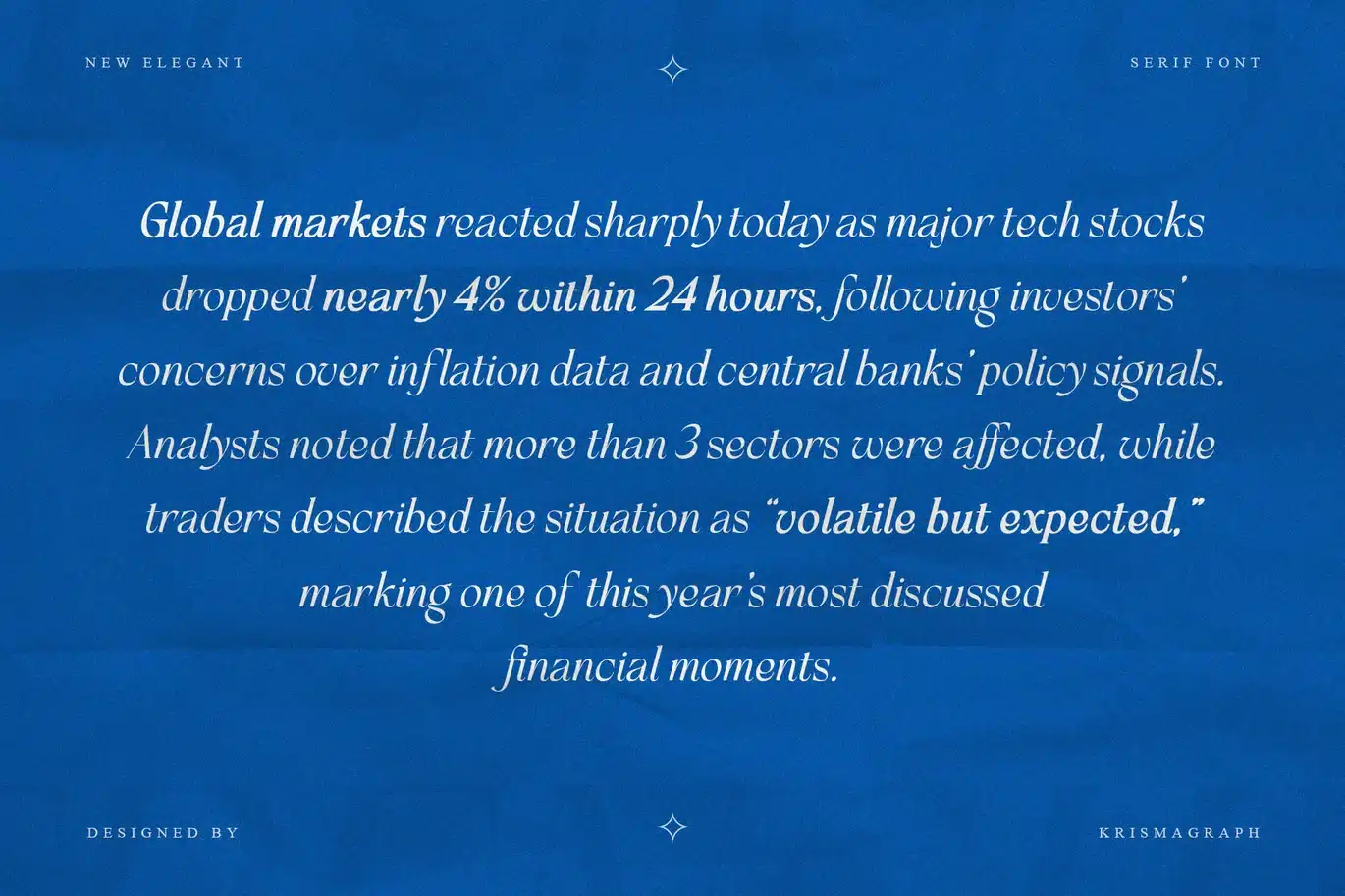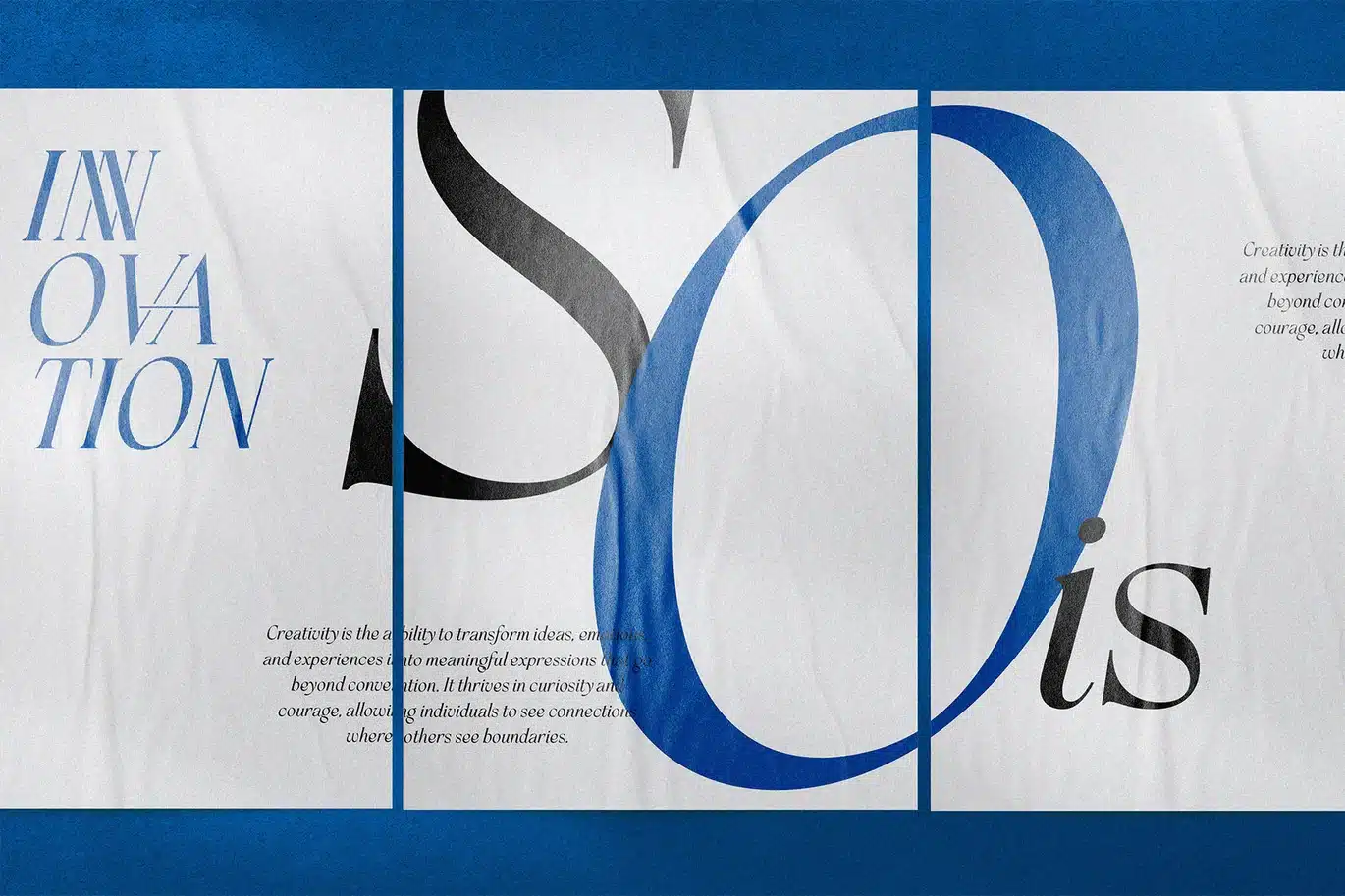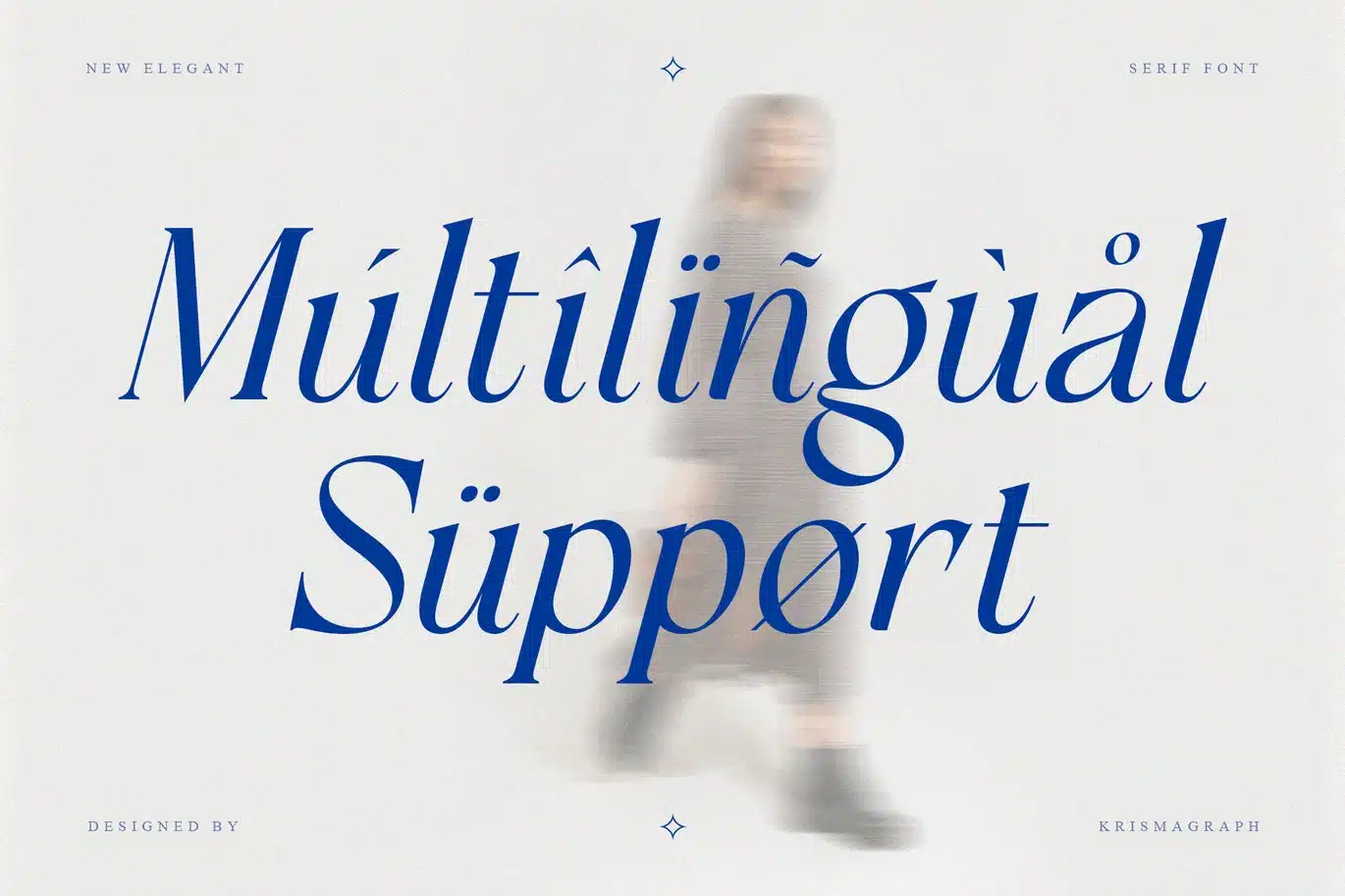
Frenchy Italic – Elegant Ligature Italic Serif Font
Frenchy Italic is an elegant italic serif font featuring smooth curves, refined ligatures, and expressive letterforms. Designed to complement modern serif compositions, this italic style adds movement and sophistication without sacrificing readability.
Perfect for editorial highlights, branding accents, quotes, logos, invitations, packaging, and stylish headlines, Frenchy Italic brings a subtle sense of flow and personality to any layout. Its carefully crafted ligatures enhance typographic rhythm and visual harmony.
Frenchy Italic is ideal for designers who want a refined italic serif that feels graceful, modern, and polished.